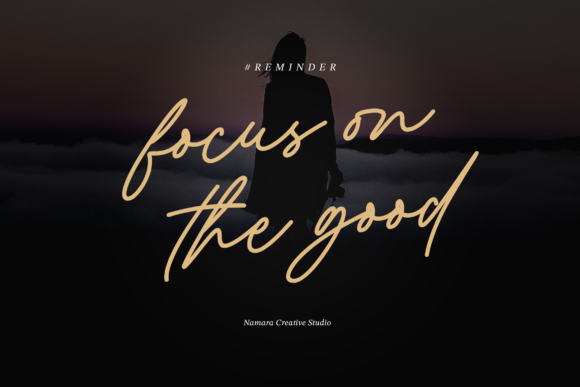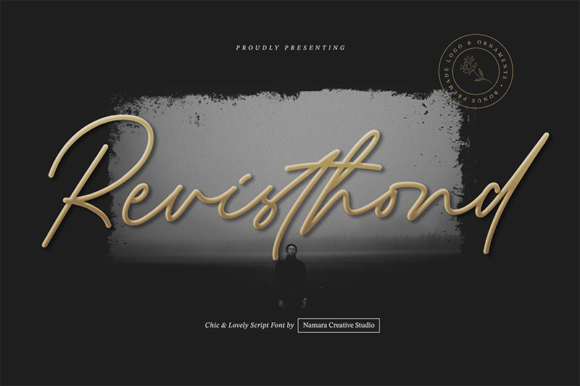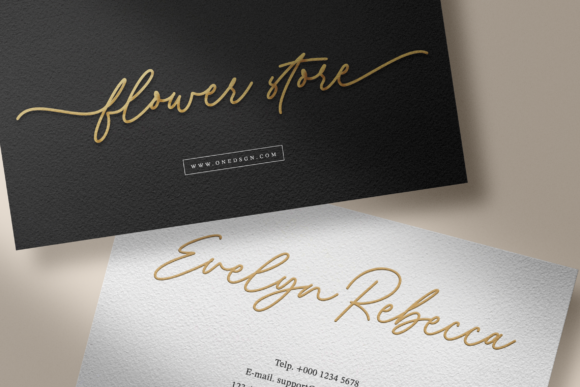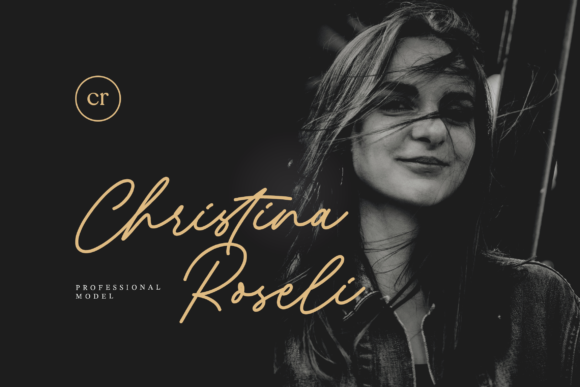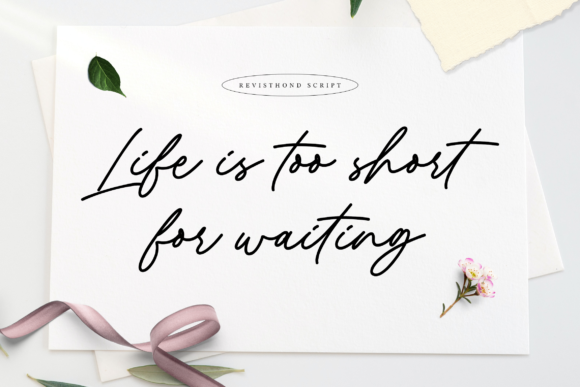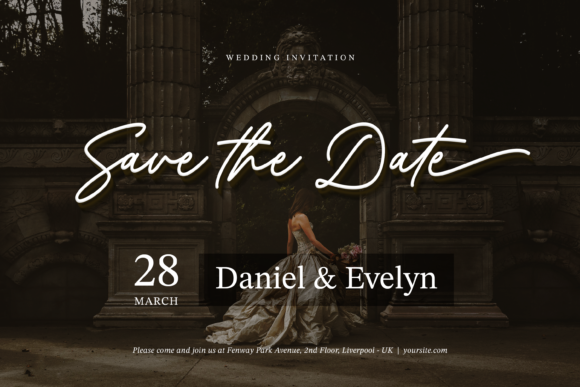
Introduction to Revisthond Font
Remember that moment when you’re brainstorming a new creative project, and you can almost see it come to life in your mind? The colors, the textures, the typography – it’s all so vivid and tantalizing. For designers, this moment is especially magical, as it’s where the true artistry begins. But, let’s be real – the right font can make all the difference in bringing your vision to life. This is where the Revisthond Font comes in, a beautiful and fashionable handwritten font that’s sure to add a touch of luxury to any design project.
With its unique feel and stunning impact, Revisthond Font is the perfect design resource for any creative project. Whether you’re working on a high-quality brochure, a website, or even a social media campaign, this font is sure to elevate your design to the next level. Plus, with its transparent background and high-quality glyphs, you can easily customize it to fit your needs.
Key Features of Revisthond Font
- High-quality font with a transparent background, ideal for creative projects that require a modern and sleek design aesthetic.
- Designed with precision, this font boasts a high resolution of 300 DPI, making it perfect for printing and digital applications.
- Unique characteristics include its elegant and sophisticated style, making it suitable for a range of creative projects, from branding to publishing.
- With a large character set and extensive language support, the Revisthond Font is perfect for multilingual designs and creative projects.
Honest Review: Revisthond Font
I recently stumbled upon the Revisthond Font, and I must say it’s been a game-changer for my creative projects. This free download has been a valuable design resource, offering a unique and high-quality aesthetic that’s perfect for modern designs.
- ✨ The font’s transparent background makes it easy to layer and customize in design applications.
- ✨ The font’s versatility shines through in its ability to be used in a variety of creative projects, from branding to typography.
- ✨ The design is sleek and modern, making it a great addition to any high-end project.
- ⚠️ The font may not be suitable for projects requiring bold or dramatic typography.
- ⚠️ The font’s design may not be ideal for projects requiring a lot of contrast or emphasis.
Overall, I’m impressed with the Revisthond Font. It’s a great addition to any designer’s toolkit, and its high-quality design makes it a valuable resource for any creative project. While it may have some limitations, its unique aesthetic and versatility make it a great choice for modern designs.
Tips for Getting the Most Out of Revisthond Font
Revisthond Font is perfect for creating professional-looking designs, such as business cards, brochures, and presentations. Its high-quality design and transparent background make it an ideal choice for creative projects.